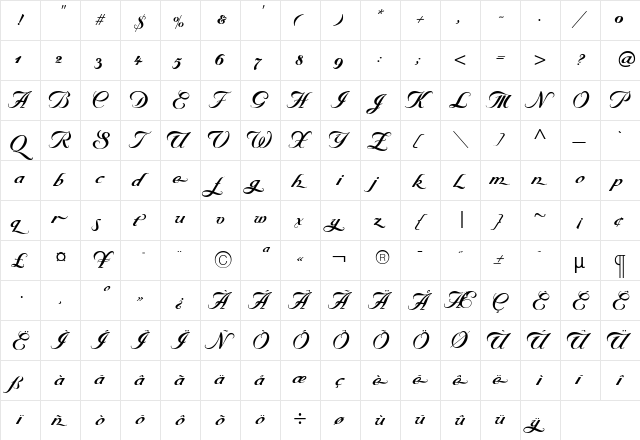
Byron Bold Swash Regular Font Preview
Design Context for Byron Bold Swash Typeface
Byron Bold Swash brings a calligraphic fluidity to the page — its connecting strokes and expressive curves give it an unmistakably human quality. The heavy weight commands attention and anchors typographic hierarchies.
Font Pairing: Combine Byron Bold Swash with a simple geometric sans for maximum contrast — the tension between flowing curves and clean structure is a classic typographic pairing.
Pro Tip: Pair Byron Bold Swash with a clean sans-serif for supporting text. The contrast between fluid script and geometric structure creates an elegant typographic hierarchy.